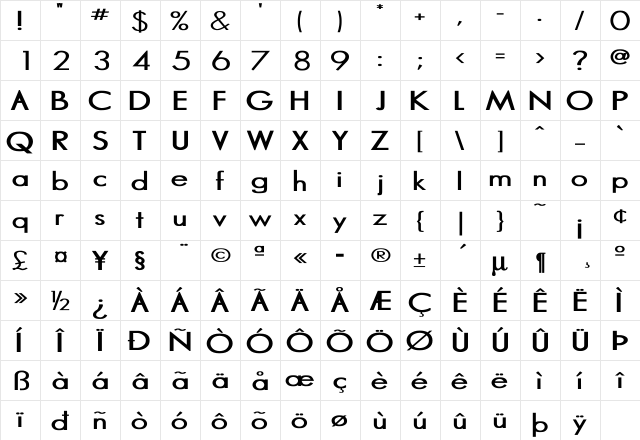
Marina Bold
Design Context for Marina Typeface
Marina takes a measured approach to typography — its balanced proportions and neutral character make it a reliable workhorse for both digital and print work. Its bold stroke weight gives it real presence on the page.